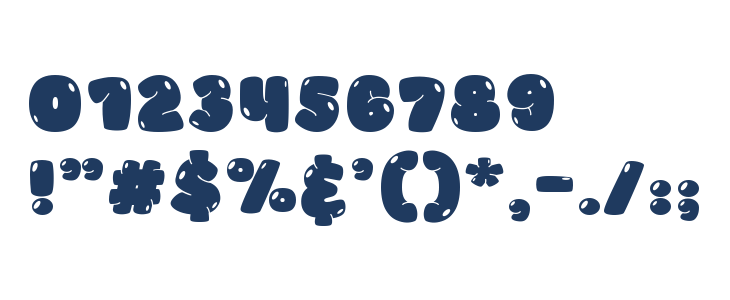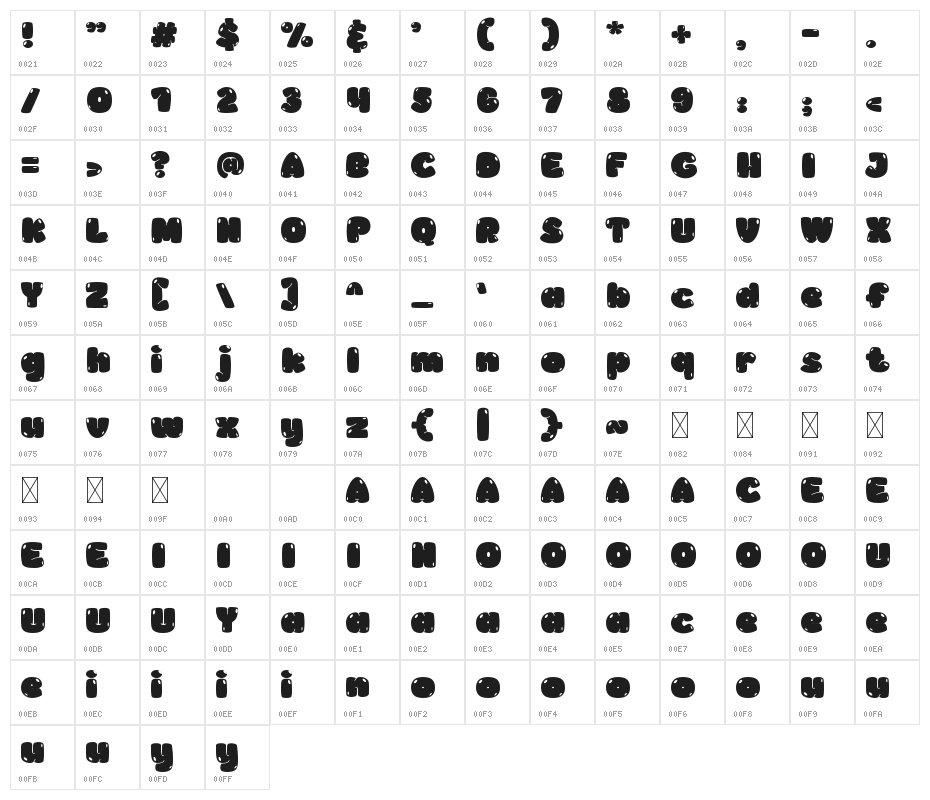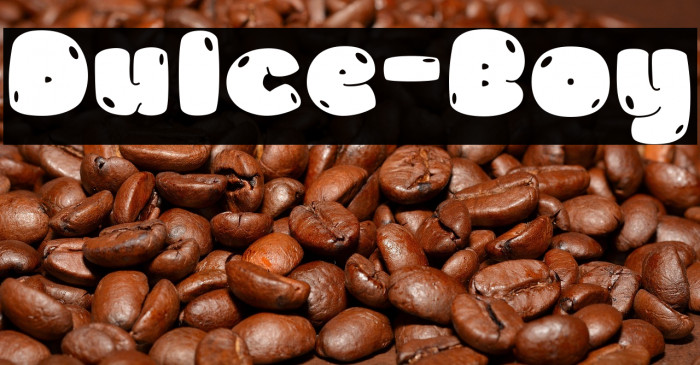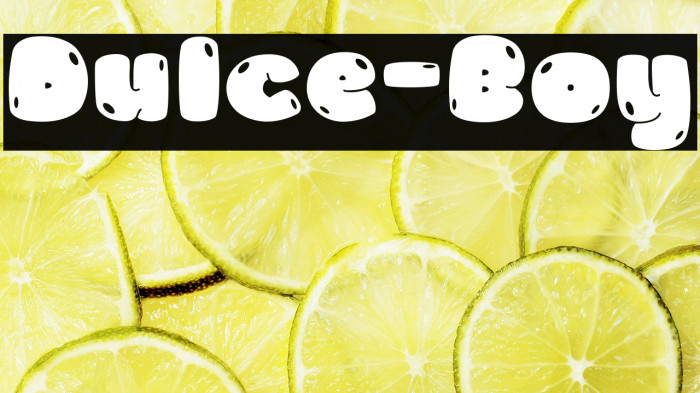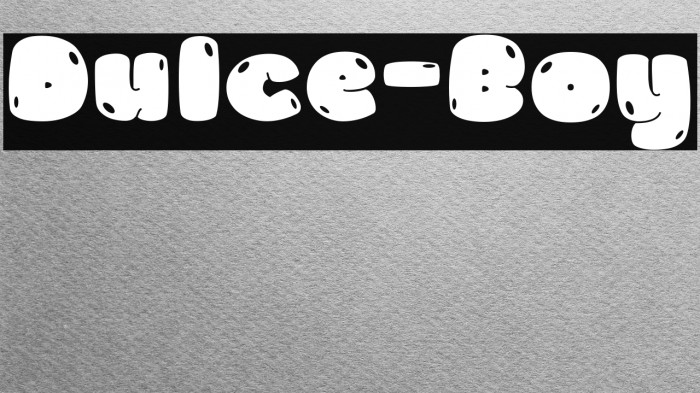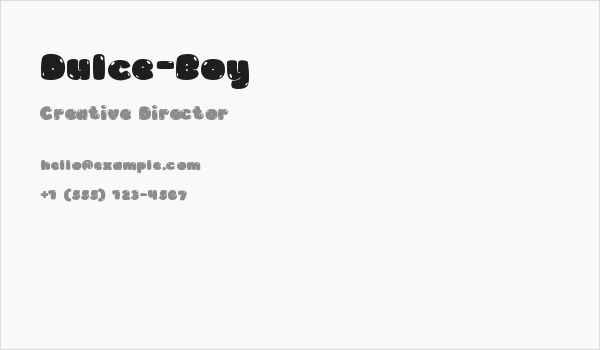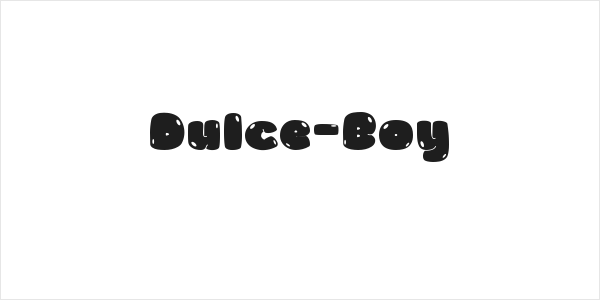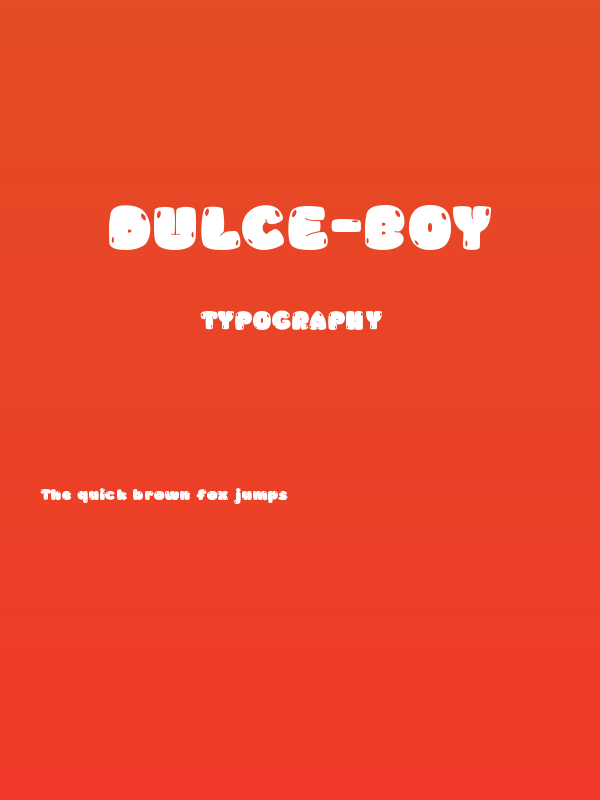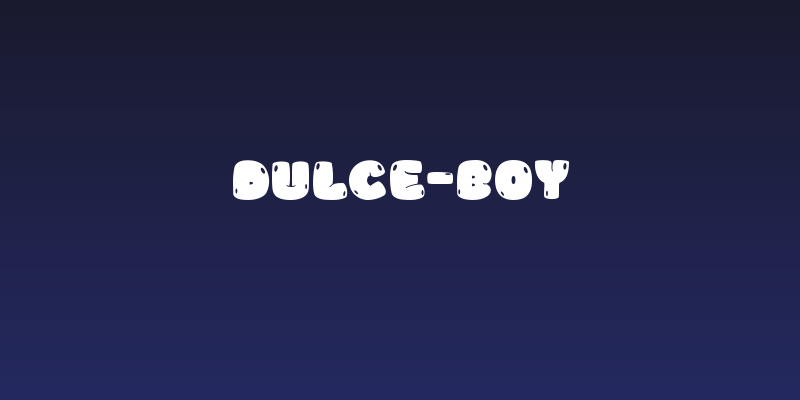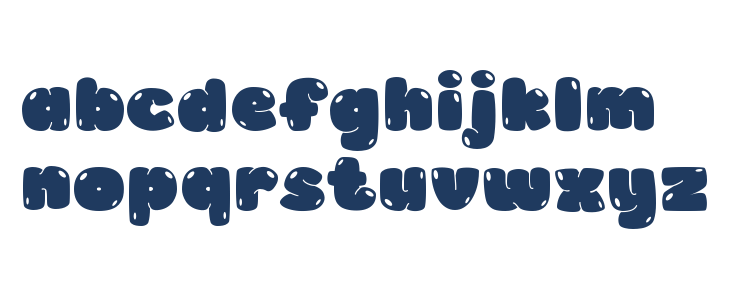
Dulce-Boy Font
Dulce-Boy Description
This playful and bold font features rounded, bubbly characters that exude a sense of fun and whimsy. Each letter is designed with a unique, almost cartoonish style, incorporating small cut-out details that add to its charm. The thick strokes and rounded edges give it a soft, approachable appearance, making it ideal for projects that require a friendly and inviting look. The font maintains consistent weight throughout, ensuring readability while still capturing attention with its distinctive style. Its unique design makes it stand out, perfect for creative and informal applications.